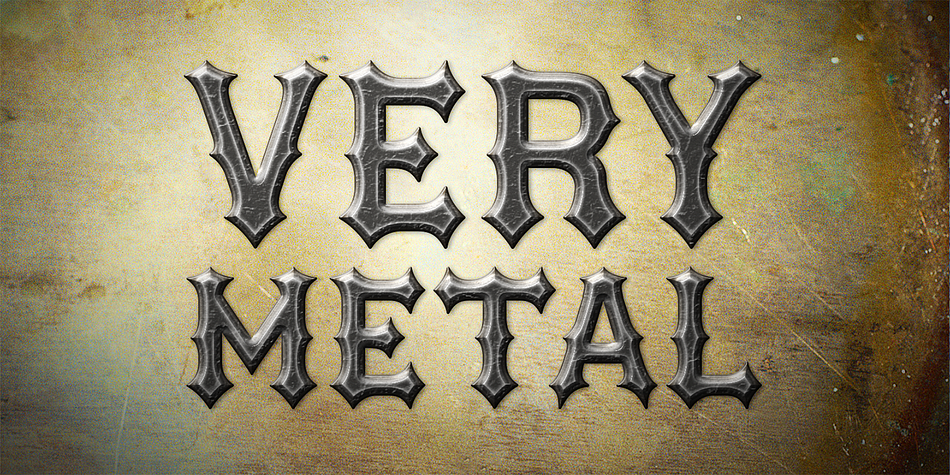
ARUNDEL
Designed by Paulo Goode, Arundel is a display and blackletter font published by Paulo Goode.
My third typeface release is Arundel, inspired by cast iron lettering above the former Arundel store in my home village.
I had been walking past this iconic façade for over 2 years admiring their “heavy metal” style and could easily envisage a typeface that could be used for band logos, posters and even product branding.
It is difficult to age the existing Arundel type, it is definitely blacksmith-made and forged in iron.
Naturally, my promotional images play on that metallic feel.
I see Arundel as being a typeface that feels immediately at home within the heavy metal genre; posters, logos, etc., but could also work equally as well for branding craft beers, engineering products and high fashion lingerie… okay, maybe not the lingerie…  Arundel is primarily a display typeface for titles/headlines in printed materials.
My third typeface release is Arundel, inspired by cast iron lettering above the former Arundel store in my home village. I had been walking past this iconic façade for over 2 years admiring their “heavy metal” style and could easily envisage a typeface that could be used for band logos, posters and even product branding.
It is difficult to age the existing Arundel type, it is definitely blacksmith-made and forged in iron. Naturally, my promotional images play on that metallic feel.
I see Arundel as being a typeface that feels immediately at home within the heavy metal genre; posters, logos, etc., but could also work equally as well for branding craft beers, engineering products and high fashion lingerie… okay, maybe not the lingerie…  Arundel is primarily a display typeface for titles/headlines in printed materials. I imagine designers will use Arundel for branding, packaging and promotional material and am keen to hear from anyone who uses it in their own work.
There are 2 design styles within this typeface, upper case letterforms are faithful to the original curvaceous design, whereas the lowercase letterforms are more angular with additional spurs.